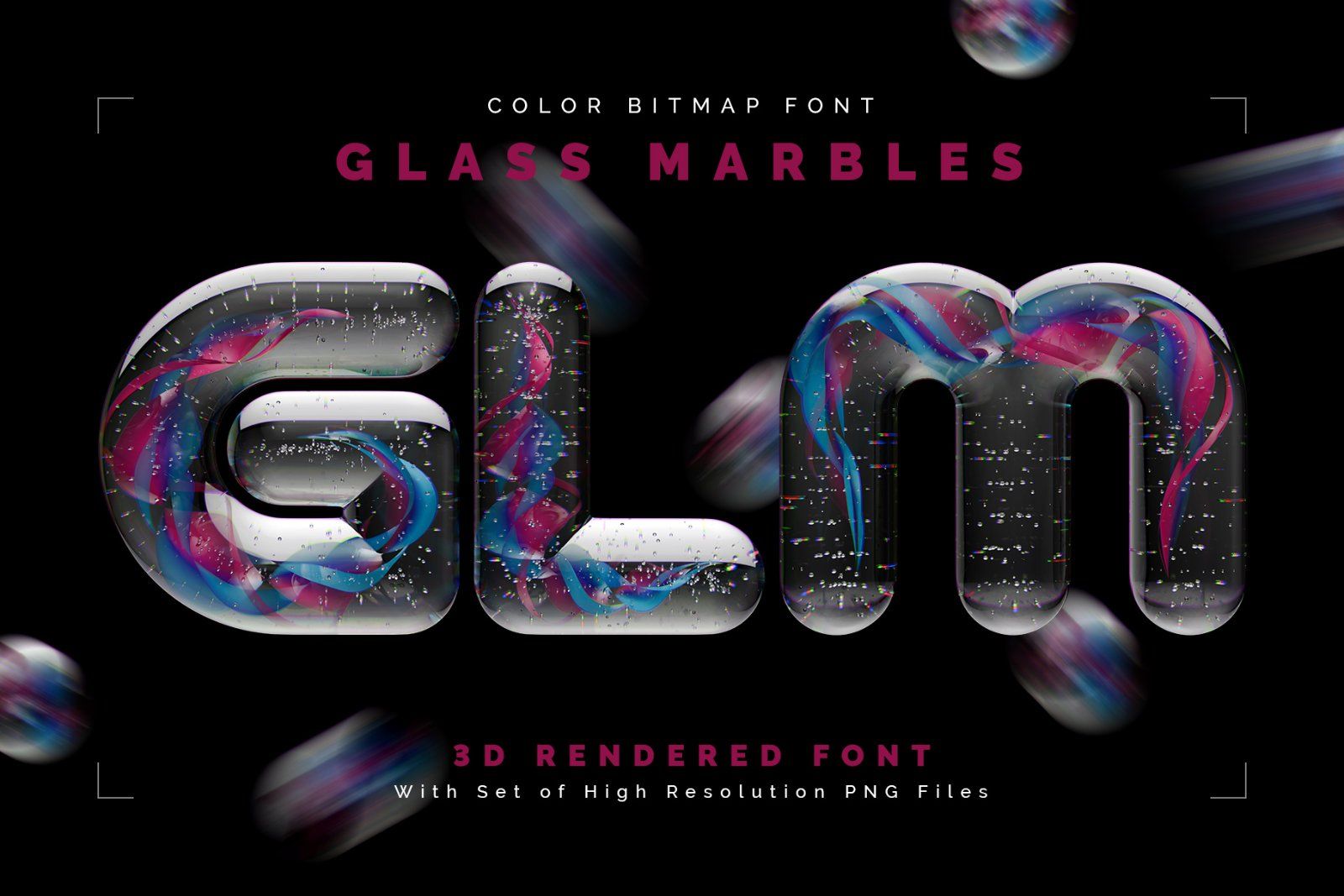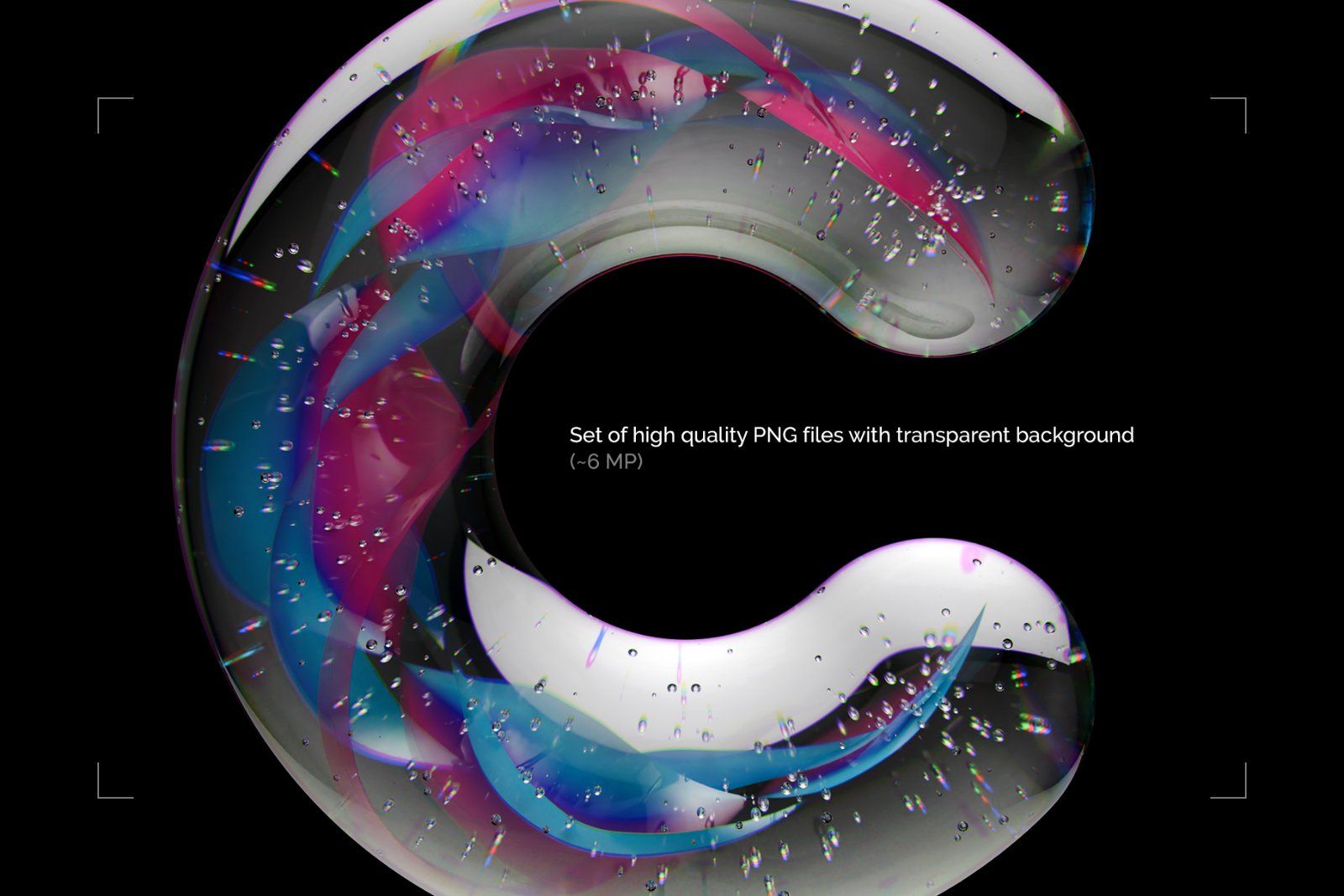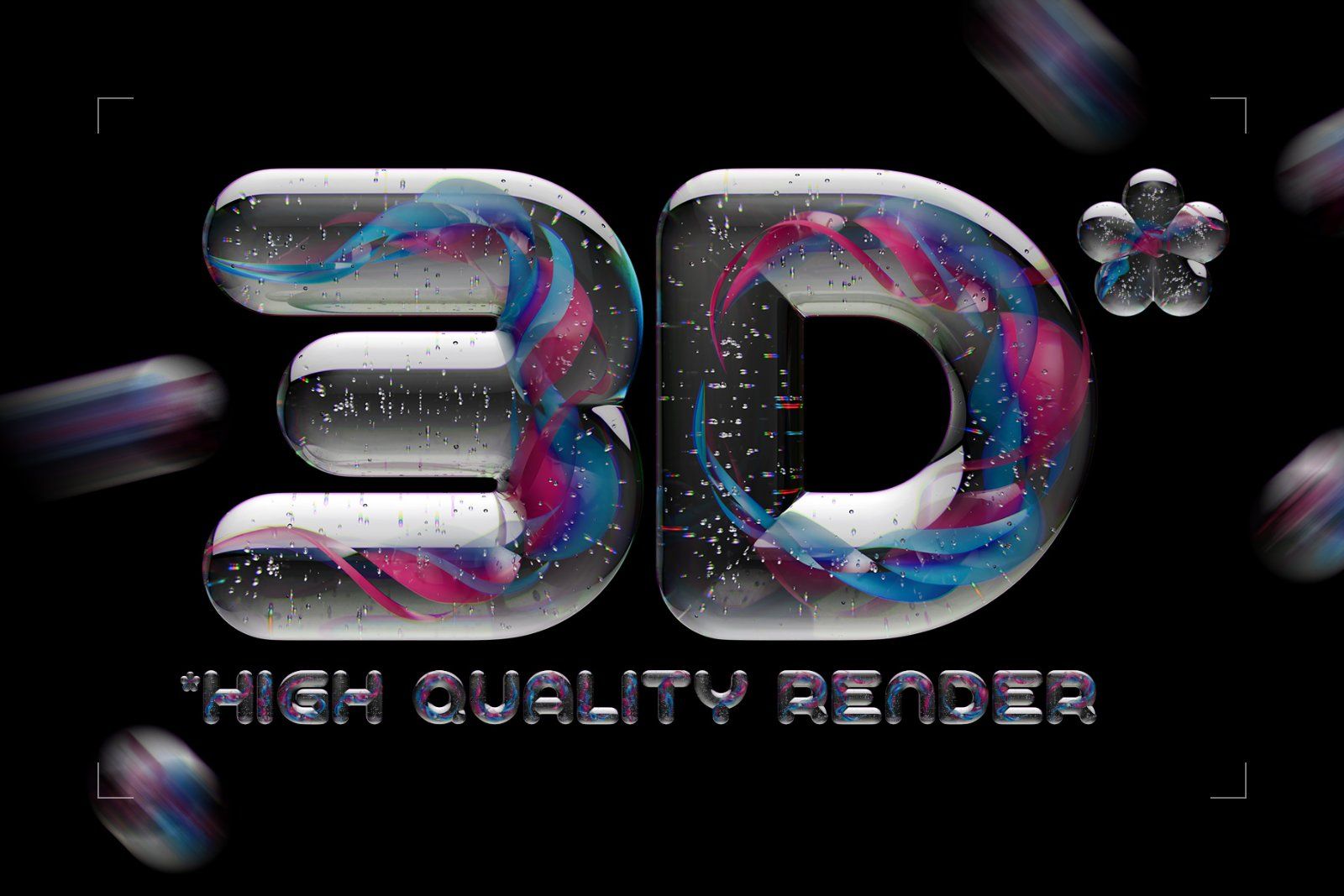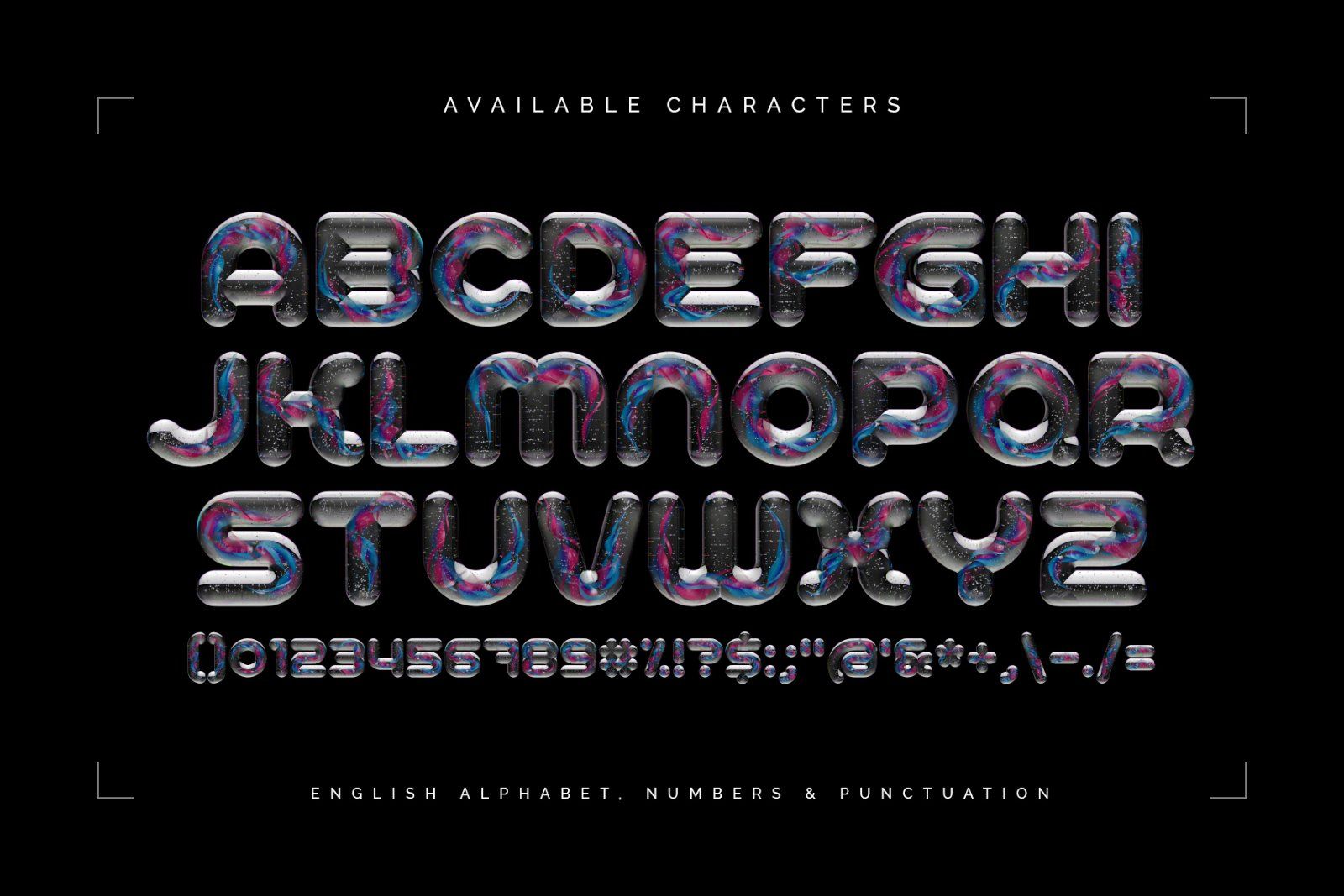
Hello! Presenting a glossy creative font set – Glass Marbles. It's a 3d rendered high quality typeface with nice rounded shape and abstract transparent effect. First of all it's a color bitmap OpenType-SVG font that can be used as a usual OTF font. Also a set of full resolution PNG files with transparent background is included (Average resolution is 6 megapixels). Consider that only English language and basic punctuation is supported, please check out the screenshot with all available characters.